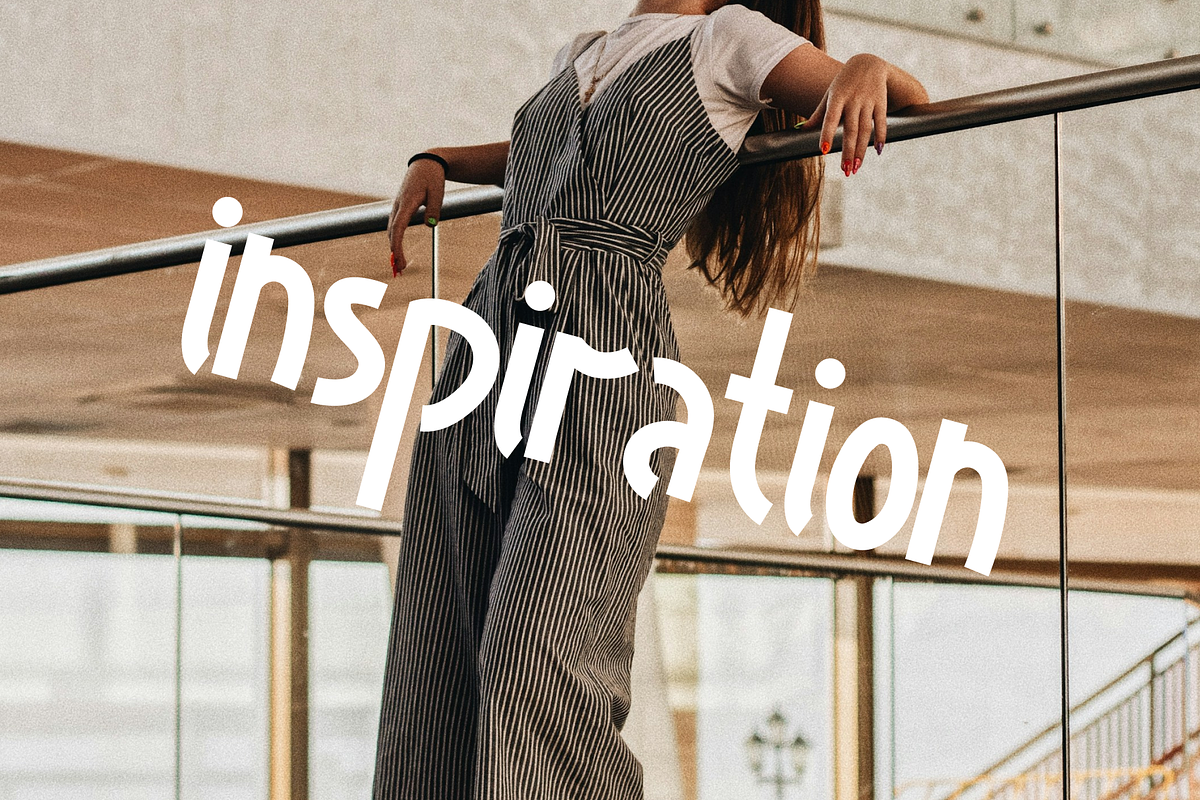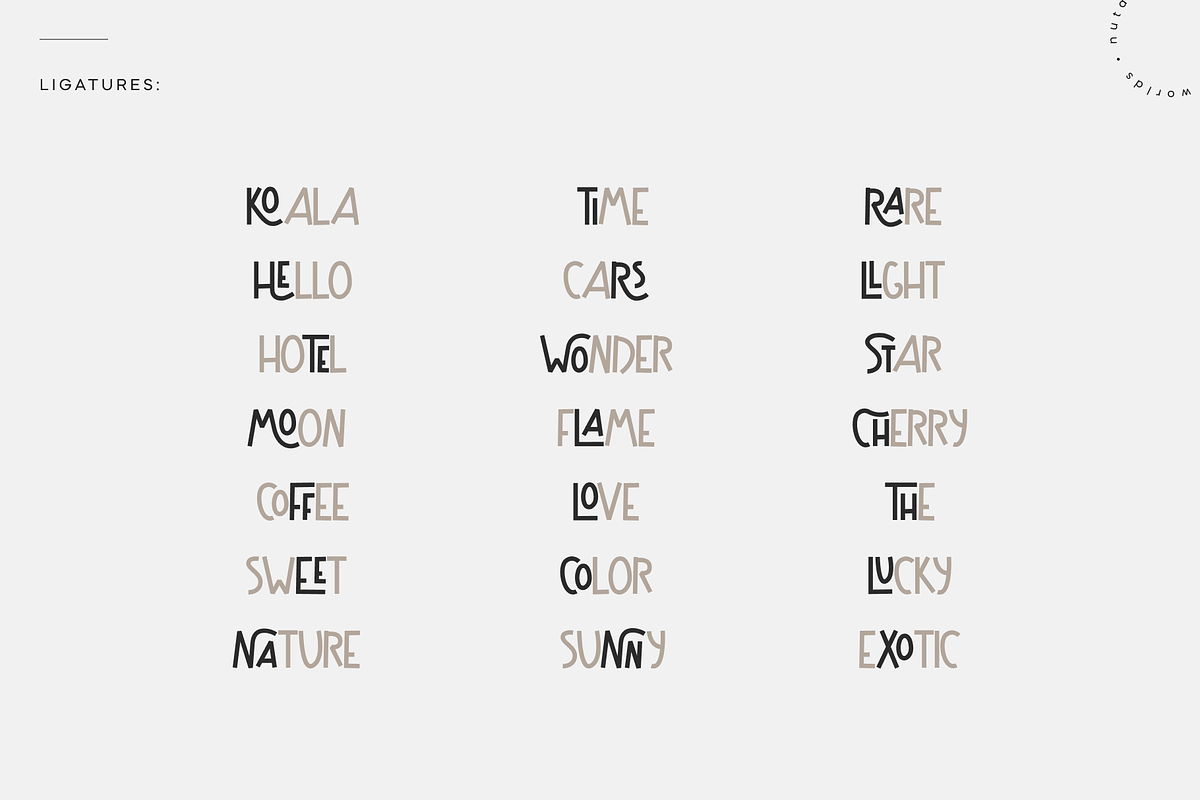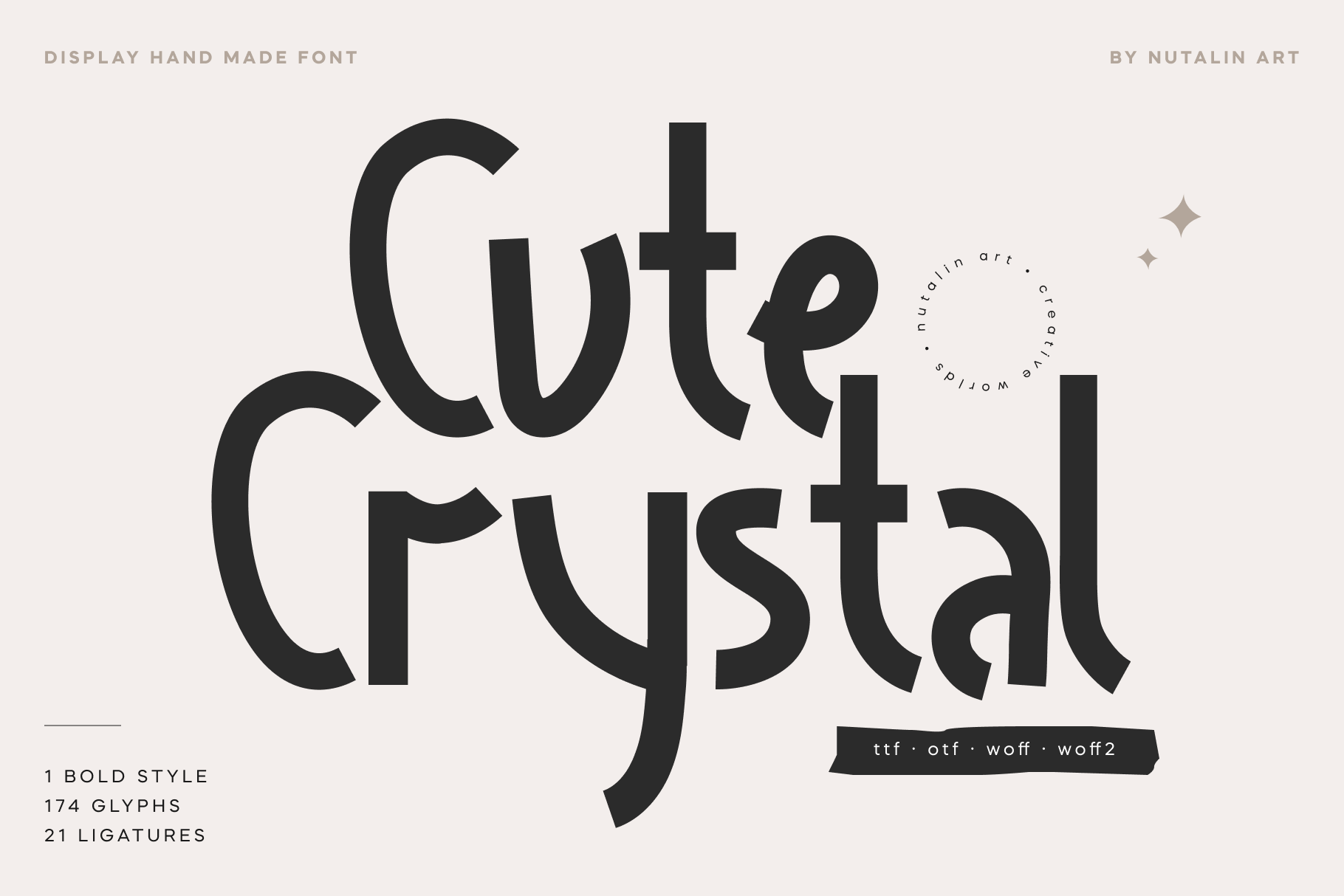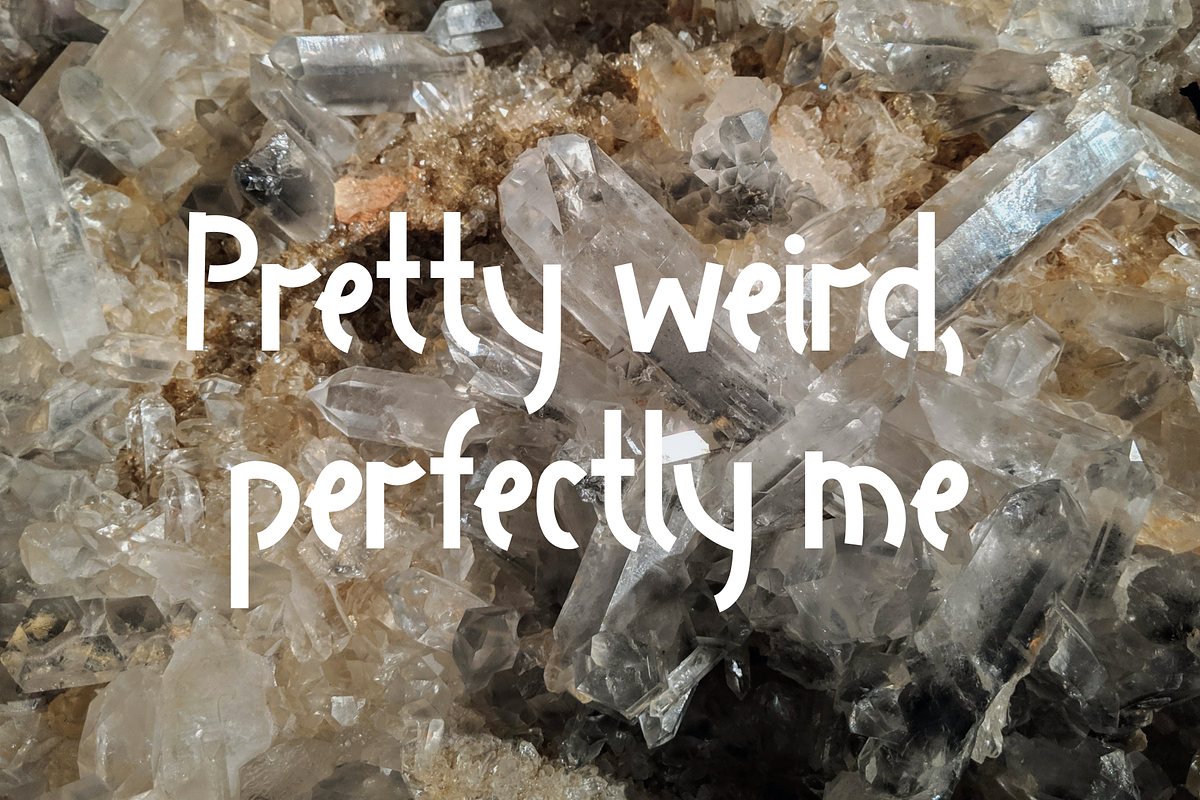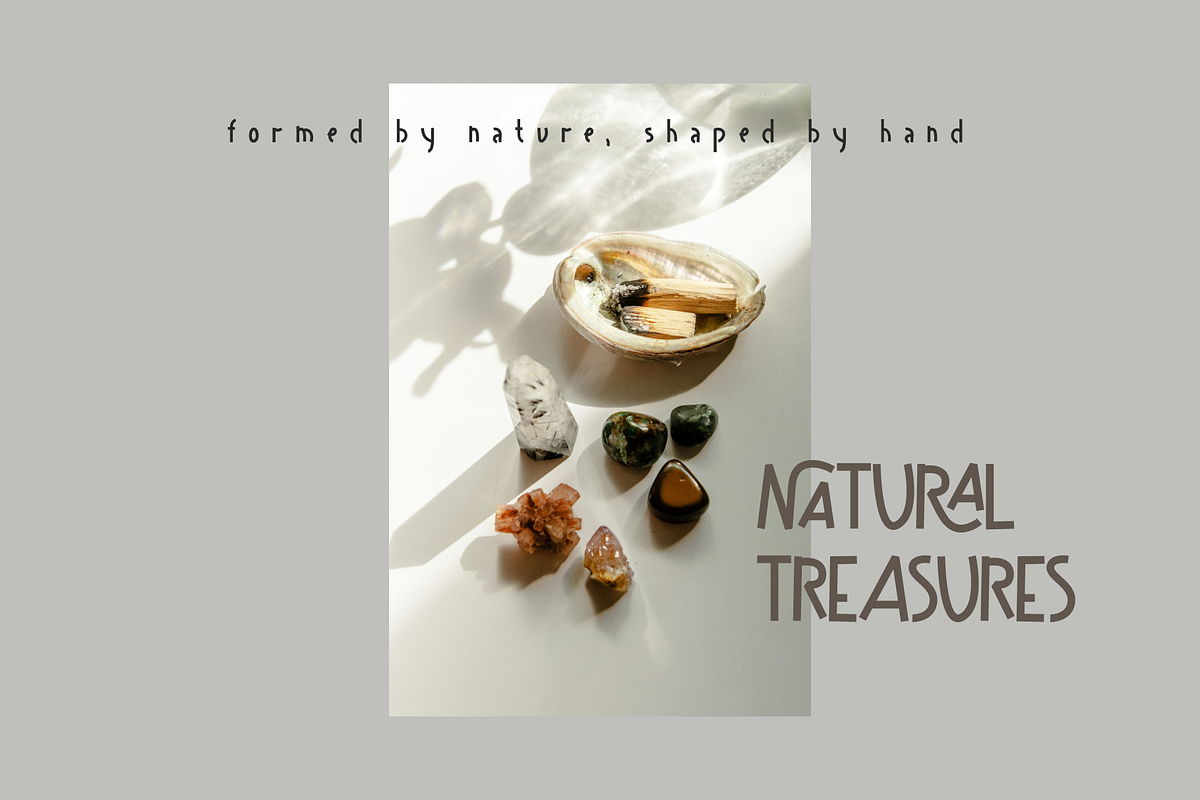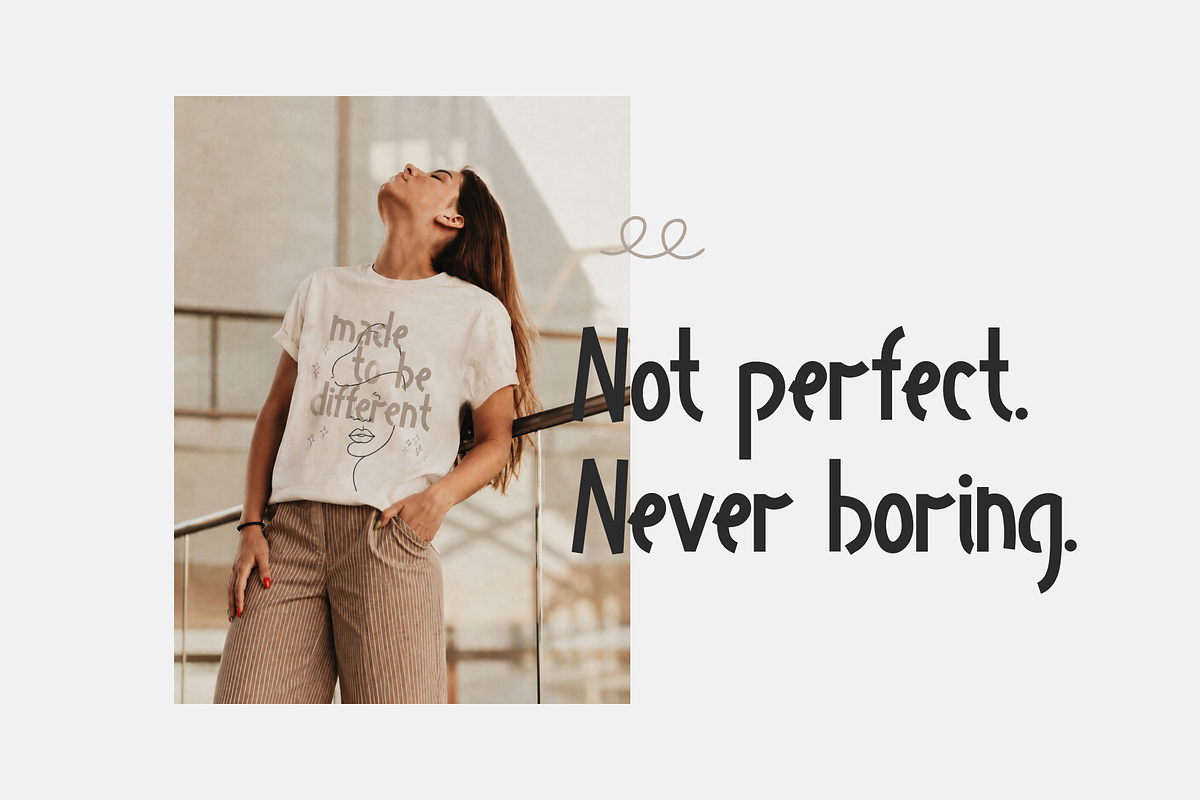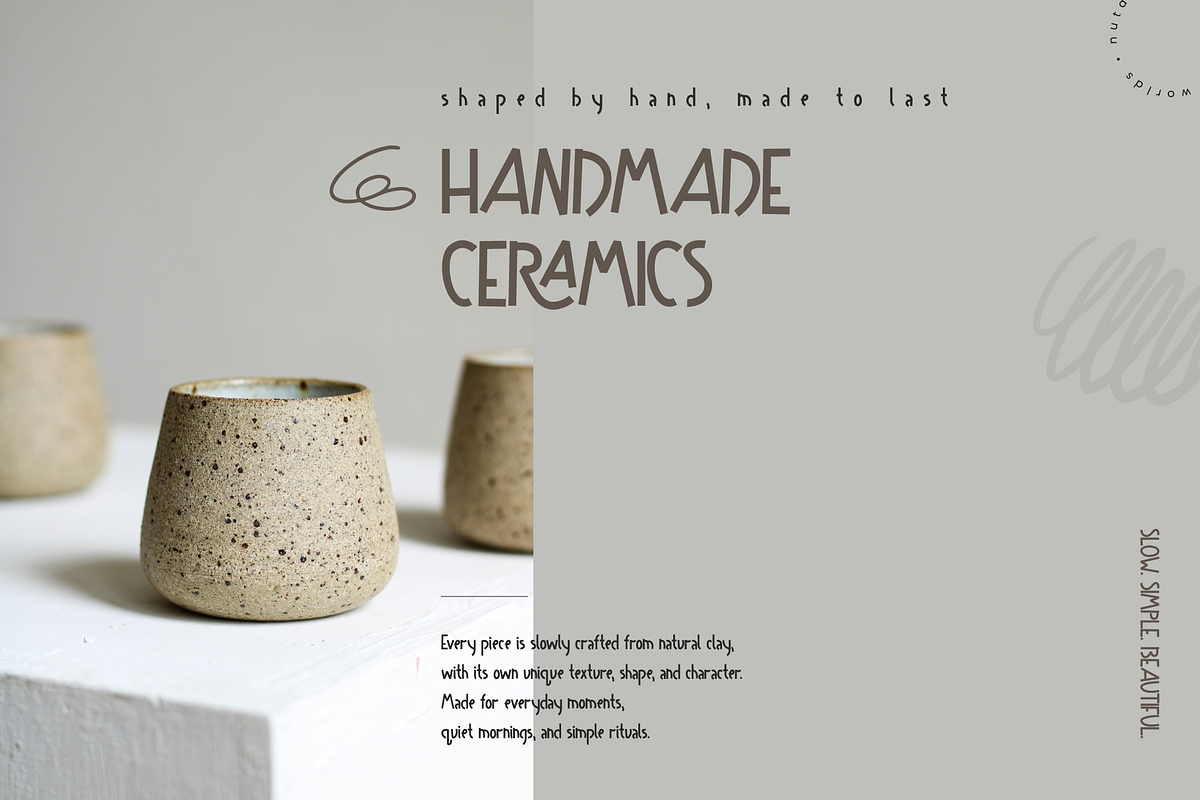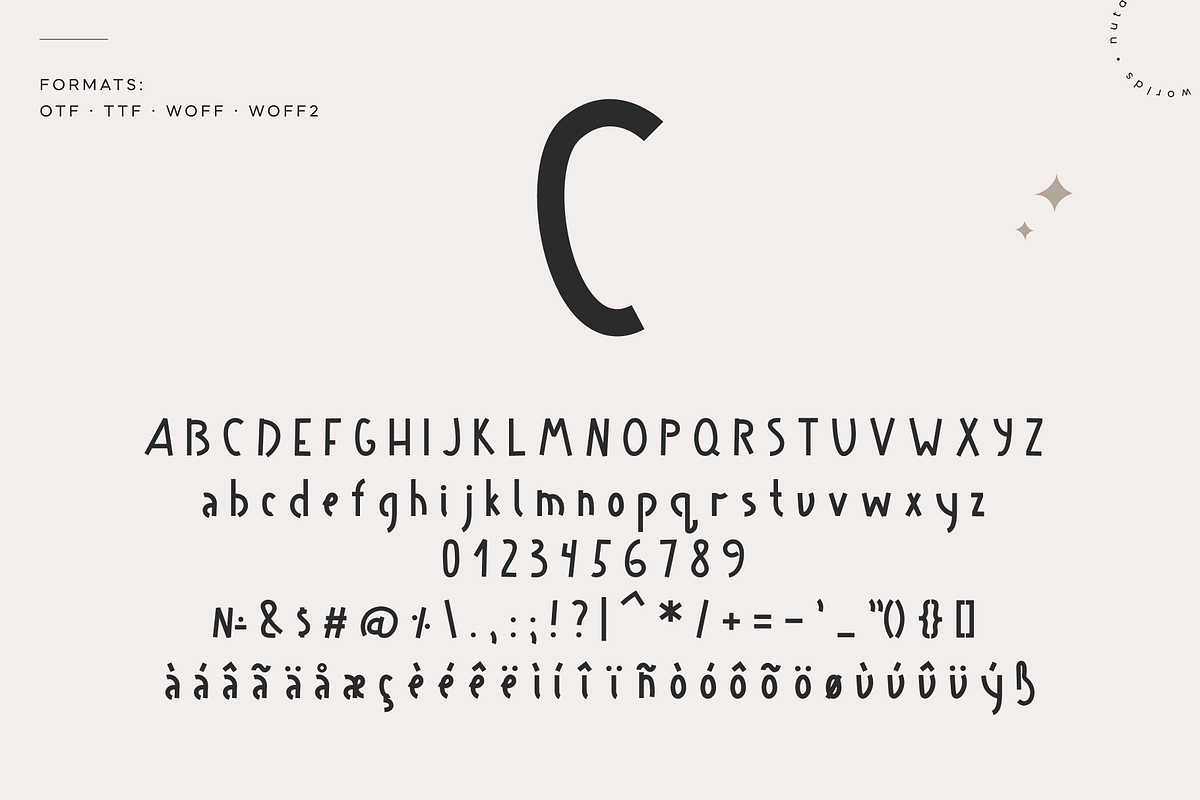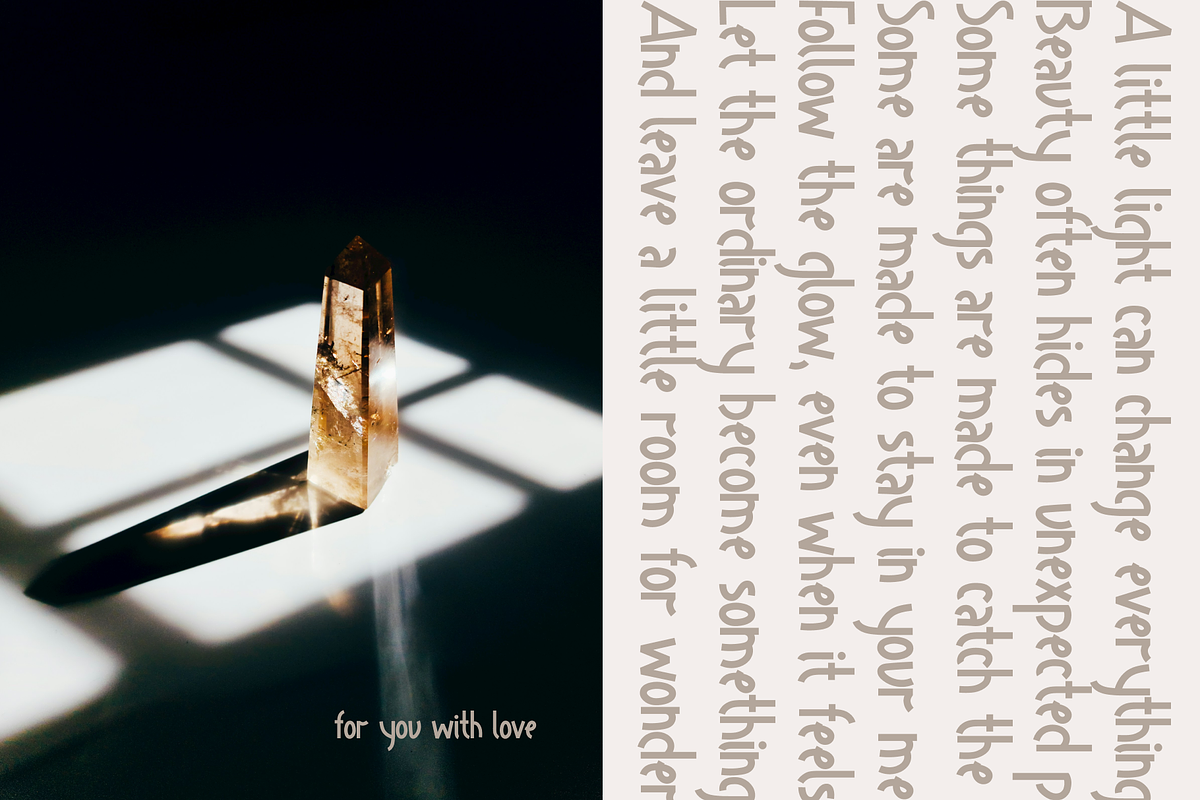
CuteCrystal Hand Drawn Font
Cute Crystal is a playful handmade display font with quirky letterforms, soft curves, and an imperfect hand-drawn character. Its unusual shapes give typography a creative, artistic feel — perfect for designs that need something more expressive than a standard typeface.
This bold handmade font works beautifully for branding, posters, packaging, social media graphics, stationery, apparel, stickers, invitations, and creative editorial projects. A great choice for modern playful branding, boutique designs, lifestyle products, and eye-catching headlines.
How you can use this:
✦ Branding & logos — creative brands, boutiques, beauty, lifestyle, handmade businesses.
✦ Posters & editorial — headlines, magazine covers, campaign graphics, art prints.
✦ Packaging & products — labels, boxes, stickers, candles, cosmetics, stationery.
✦ Apparel & merch — T-shirts, sweatshirts, tote bags, mugs and accessories.